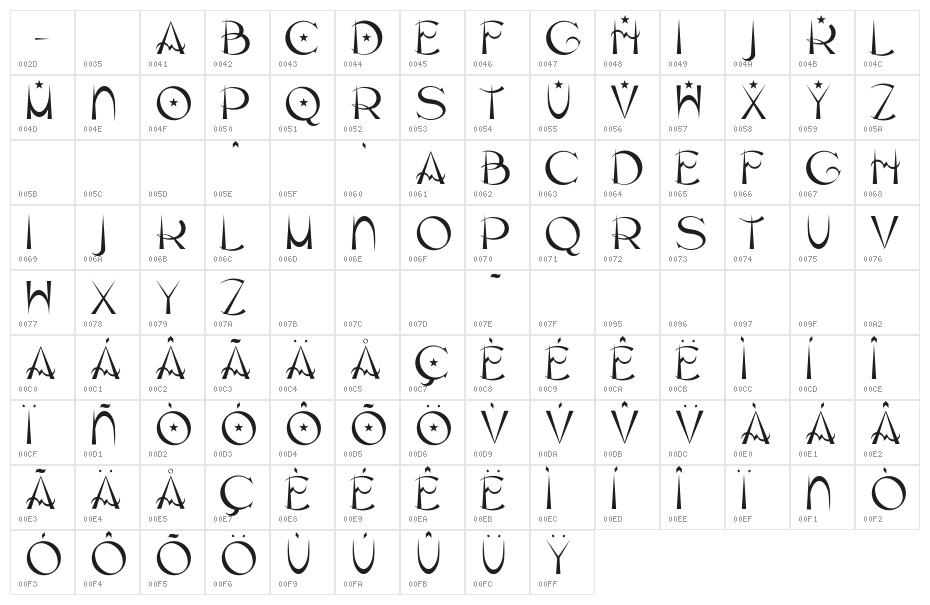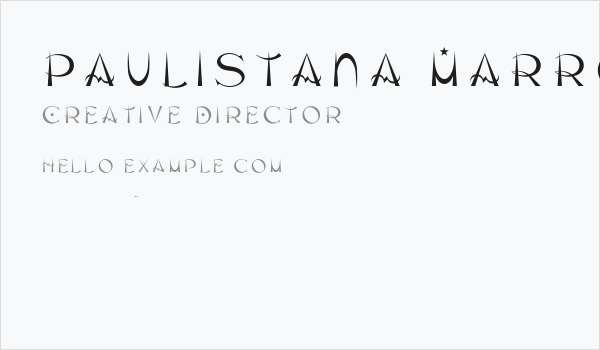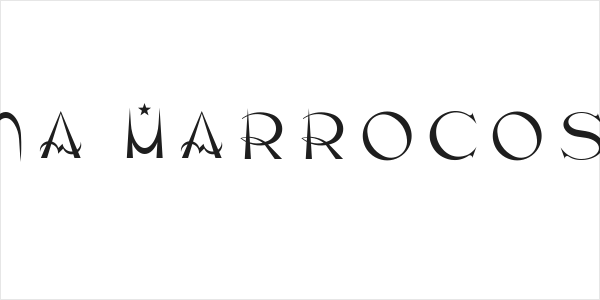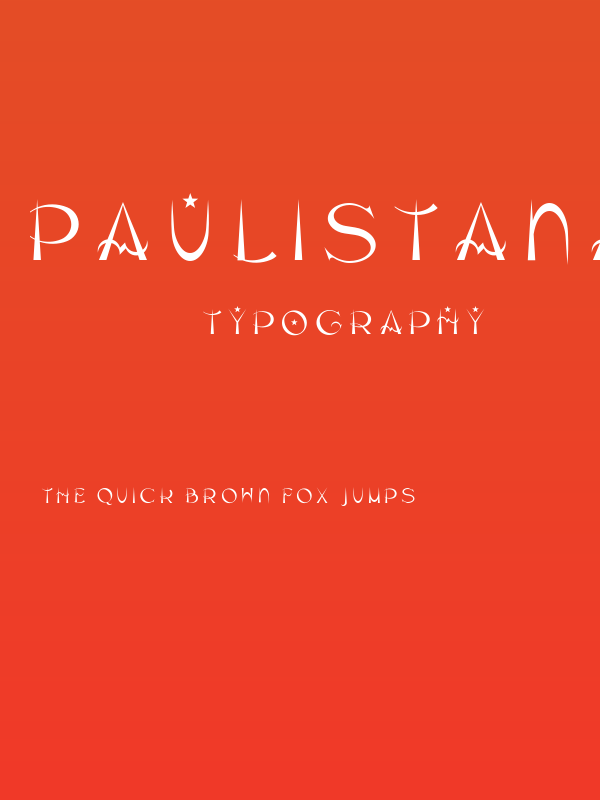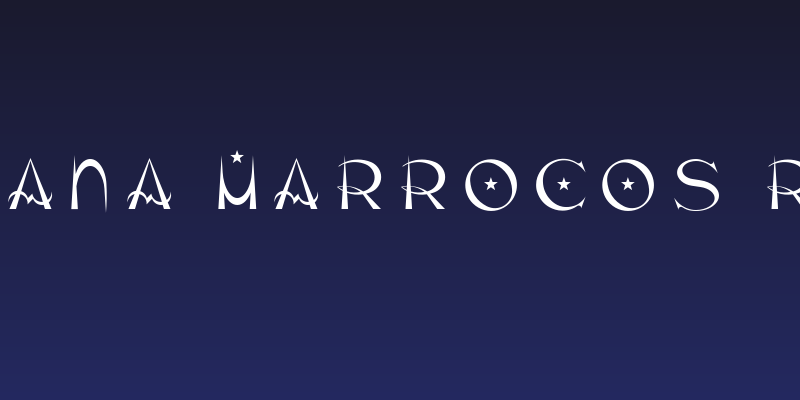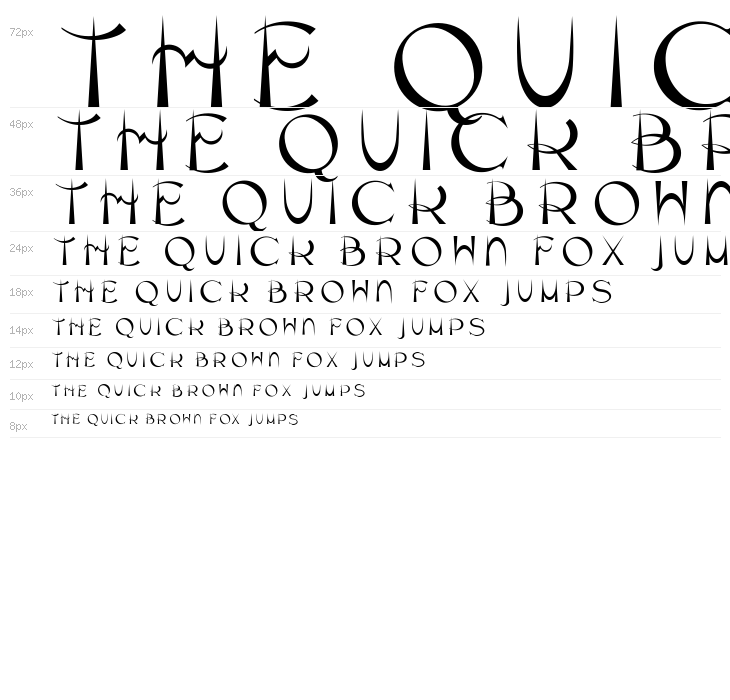
Paulistana Marrocos Regular Font
Paulistana Marrocos Regular Description
This font features a unique and artistic design with decorative elements, such as stars and crescent shapes, integrated into the letterforms. The characters exhibit a blend of sharp, angular lines and smooth curves, creating a dynamic and eye-catching appearance. The uppercase letters are particularly ornate, with embellishments that add a whimsical and playful touch. The lowercase letters maintain a similar style, ensuring consistency throughout the typeface. The overall design is both modern and exotic, making it suitable for creative and expressive projects.
| Proposed Projects | Ideal for creative projects such as posters, album covers, branding for artistic ventures, and any design requiring a distinctive and expressive typeface. |